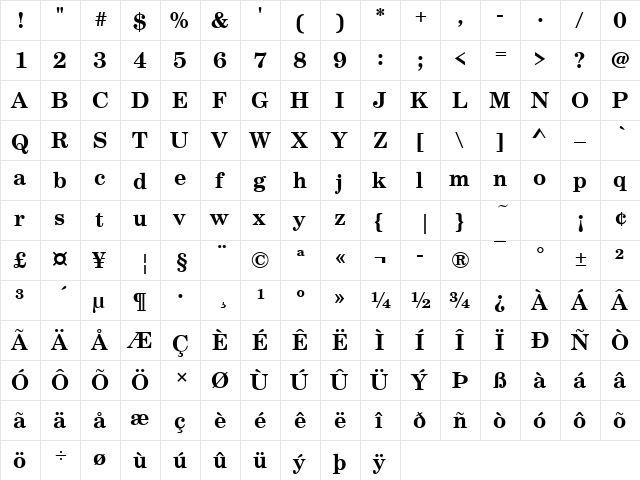
CenturySchT Bold Font Preview
CenturySchT Bold
CenturySchT Bold Font Details
Design Context for CenturySchT Typeface
CenturySchT is a composed and adaptable typeface that performs quietly and consistently across a wide range of design contexts. The heavy weight commands attention and anchors typographic hierarchies.